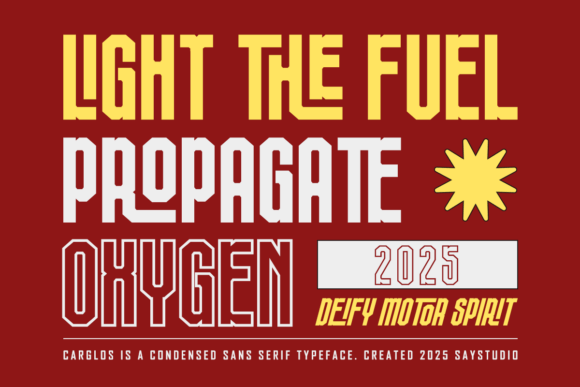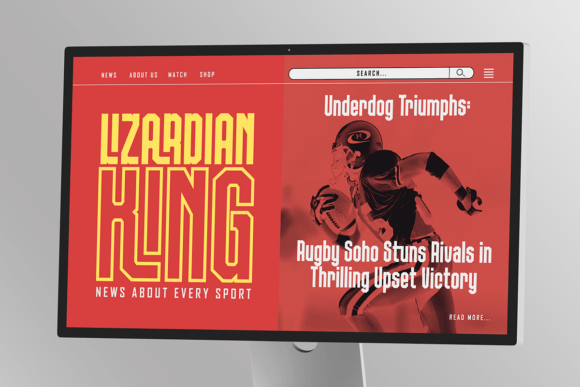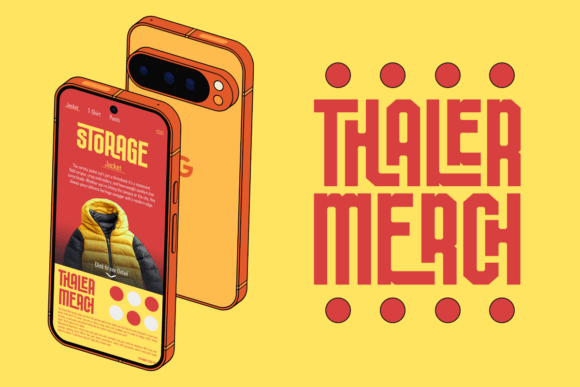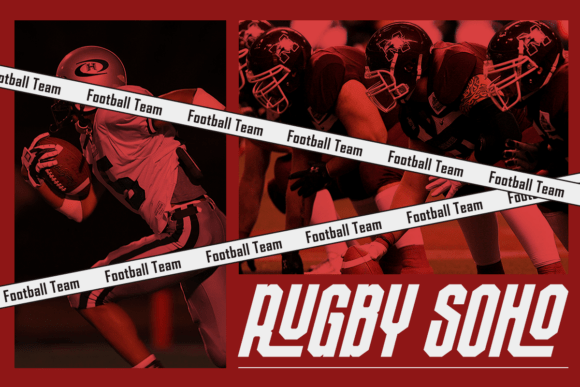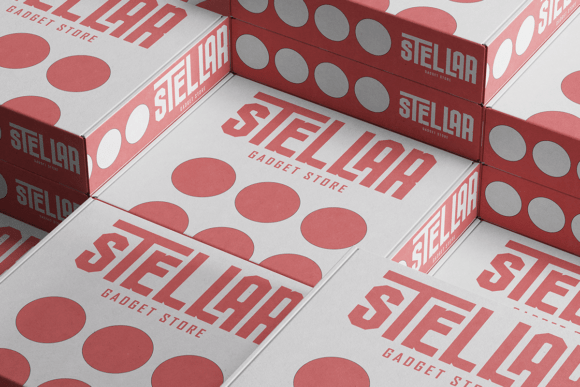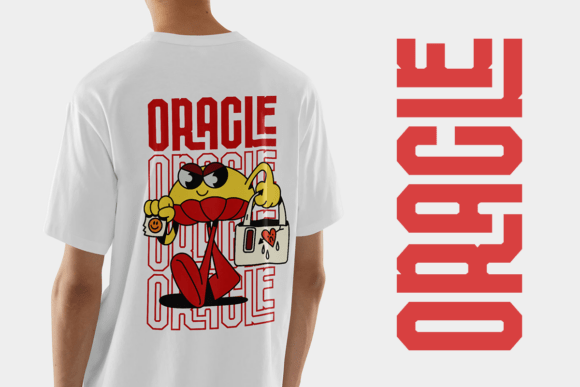
Carglos Font: The Ultimate Choice for Bold and Eye-Catching Designs
In the world of typography, fonts play a crucial role in conveying the message and tone of a design. With thousands of fonts available, finding the perfect one for your project can be overwhelming. However, if you’re looking for a font that exudes confidence, sophistication, and creativity, look no further than Carglos Font. In this article, we’ll delve into the features, benefits, and uses of Carglos Font, and explore why it’s a favorite among designers and crafters.
What is Carglos Font?
Carglos Font is a simple, condensed sans serif font that packs a bold and complex personality. Designed to make a statement, Carglos is perfect for headlines, billboards, magazines, websites, titles, posters, branding, and logos. Its sleek and modern design makes it an excellent choice for designers and crafters looking to add a touch of sophistication to their projects.
Key Features of Carglos Font
Carglos Font boasts an impressive array of features that set it apart from other fonts. Some of its key features include:
- Condensed design: Carglos Font is designed to be compact and space-efficient, making it perfect for headlines, titles, and short paragraphs of text.
- Bold and complex personality: Despite its simplicity, Carglos Font has a bold and complex personality that adds depth and character to any design.
- Tons of ligatures and alternates: Carglos Font comes with a wide range of ligatures and alternates, allowing designers to experiment with different styles and create unique typography.
- Multilingual support: Carglos Font supports multiple languages, making it a great choice for designers working on international projects.
Benefits of Using Carglos Font
So, why should you choose Carglos Font for your next project? Here are just a few benefits of using this versatile font:
- Versatility: Carglos Font can be used in a wide range of design applications, from headlines and titles to logos and branding.
- Legibility: Despite its condensed design, Carglos Font remains highly legible, even at small point sizes.
- Customizability: With tons of ligatures, alternates, and other features to choose from, designers can customize Carglos Font to fit their unique style and vision.
- Time-saving: Carglos Font is designed to be efficient, saving designers time and effort when working on projects.
Who Can Benefit from Carglos Font?
Carglos Font is an excellent choice for a wide range of designers and crafters, including:
- Graphic designers: Carglos Font is perfect for graphic designers working on branding, logos, and marketing materials.
- Web designers: Carglos Font can be used to create stunning website headers, titles, and other typography.
- Advertising agencies: Carglos Font is ideal for advertising agencies looking to create bold and eye-catching campaigns.
- Crafters and DIY enthusiasts: Carglos Font can be used for crafting and DIY projects, such as making signs, posters, and other materials.
- Experiment with different point sizes: Carglos Font looks great in large point sizes, but it also remains legible at smaller sizes.
- Play with ligatures and alternates: Take advantage of Carglos Font’s tons of ligatures and alternates to create unique and customized typography.
- Pair with other fonts: Carglos Font can be paired with other fonts to create stunning contrast and visual interest.
| Font Name | Carglos Font |
| Author | SayStudio |
In conclusion, Carglos Font is a versatile and powerful font that can elevate any design project. With its bold and complex personality, tons of ligatures and alternates, and multilingual support, Carglos Font is perfect for designers and crafters looking to make a statement. Whether you’re working on a headline, title, logo, or branding project, Carglos Font is an excellent choice. So why wait? Download Carglos Font today and start creating stunning designs that demand attention!